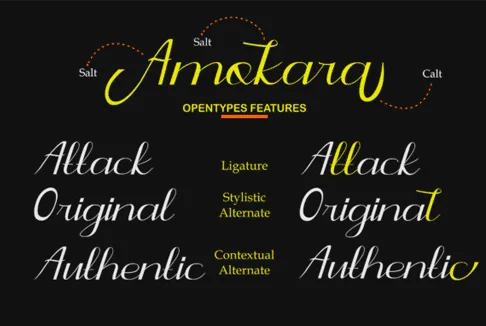
Amokara Script Font
Amokara Script Font is perfect for tropical resort branding, exotic destination marketing, Indonesian cultural events, Southeast Asian restaurant signage, island spa treatments, tropical fashion brands, cultural heritage materials, Balinese-inspired wedding invitations, tropical wellness centers, and authentic Asian hospitality branding.
Amokara Script Font is exciting because it beautifully captures the flowing elegance and cultural richness of Indonesian artistic traditions, creating a script typeface that embodies tropical sophistication, cultural authenticity, and the serene beauty of Southeast Asian paradise. This font brings exotic charm and cultural depth to any project, making it ideal for brands that want to convey tropical luxury, cultural respect, and the enchanting allure of Indonesian heritage. Its graceful character and tropical appeal create an atmosphere of island sophistication that resonates with audiences seeking authentic cultural experiences.
Amokara Script Font family includes regular, light, and medium weights, plus tropical flourishes, Indonesian-inspired ornaments, and cultural decorative elements, providing designers with comprehensive tools for creating authentic Southeast Asian typography and culturally rich brand experiences.
This elegant tropical script typeface combines traditional Indonesian design influences with contemporary functionality, making Amokara Script Font Free Download an exceptional choice for projects celebrating Southeast Asian culture and tropical destinations. The font's gracefully crafted letterforms feature flowing proportions and cultural styling that honor the artistic heritage and natural beauty of the Indonesian archipelago.
Whether you're designing tropical hospitality branding, cultural tourism materials, or authentic Indonesian restaurant identity, Amokara Script Font delivers unmatched cultural authenticity and tropical sophistication. The font excels in both intimate cultural applications and large-scale resort environments where Indonesian heritage and tropical paradise create transformative experiences.
Tourism and hospitality professionals choose Amokara Script Font for its ability to instantly communicate tropical paradise and cultural authenticity while creating emotional connections with travelers seeking genuine Southeast Asian experiences. The font's exotic character makes it particularly effective for Indonesian resorts, cultural attractions, and authentic tropical brands.
Each character reflects the flowing artistry of Indonesian culture, featuring graceful curves and tropical details that create typography as beautiful and serene as Balinese temples, tropical sunsets, and traditional Indonesian batik patterns.